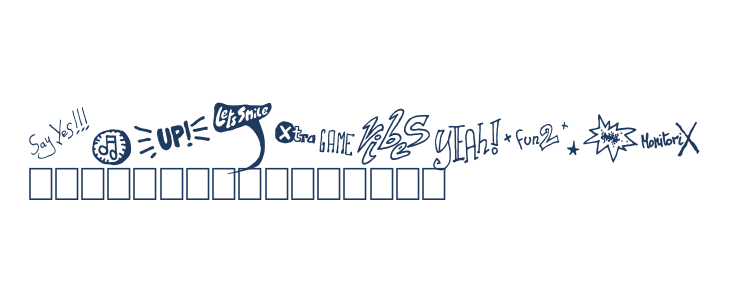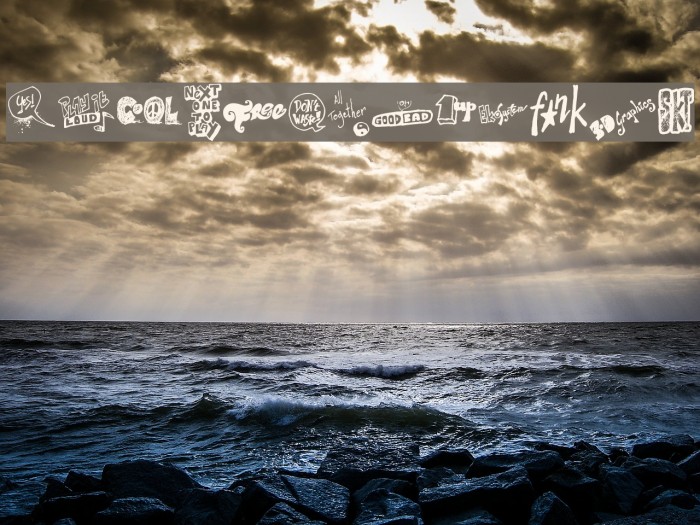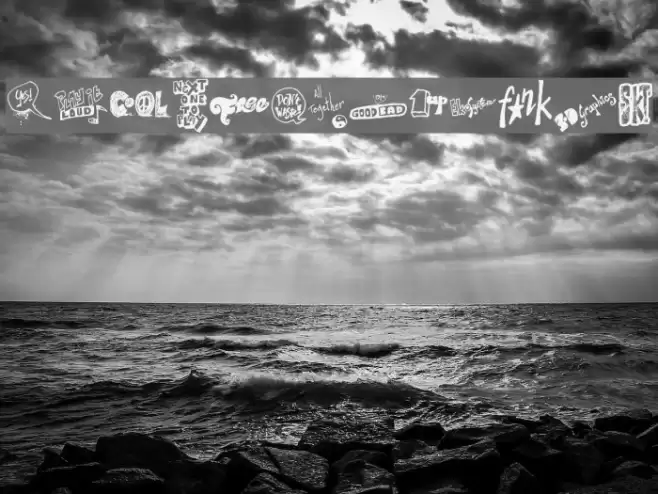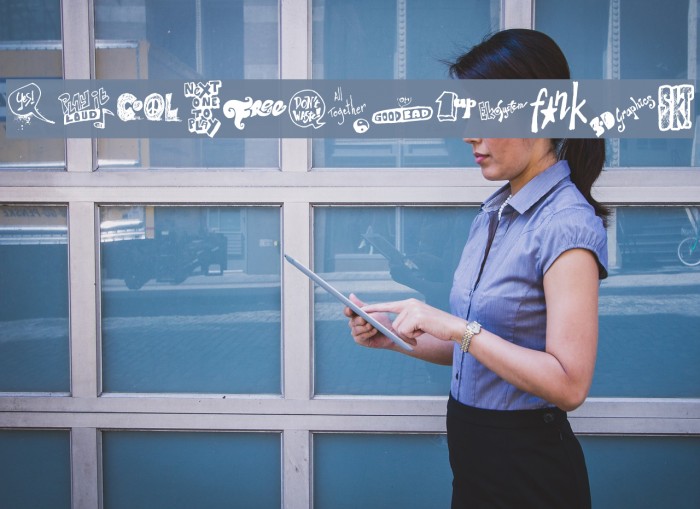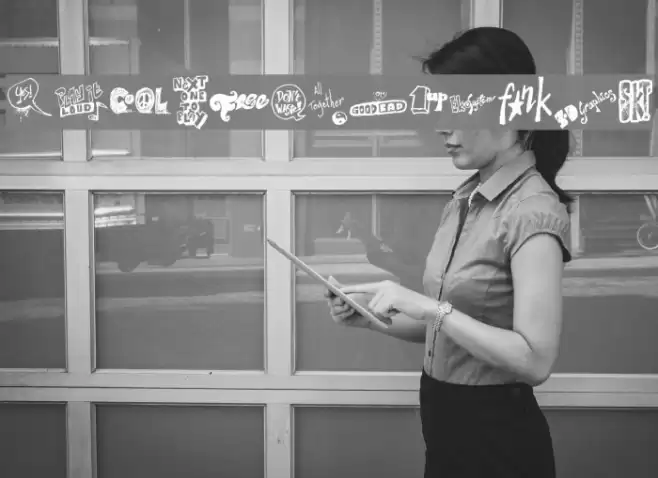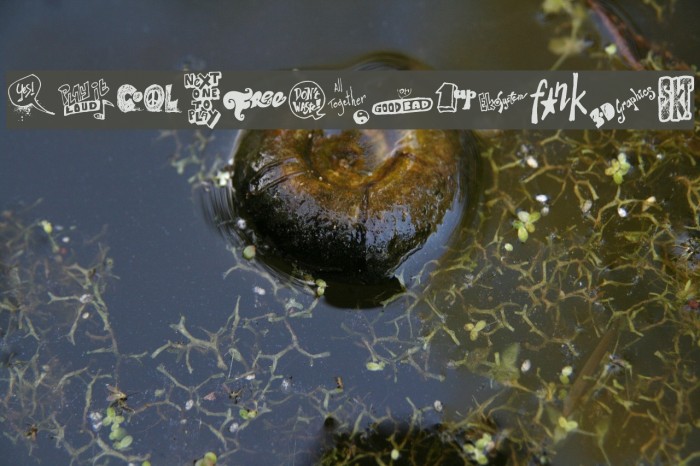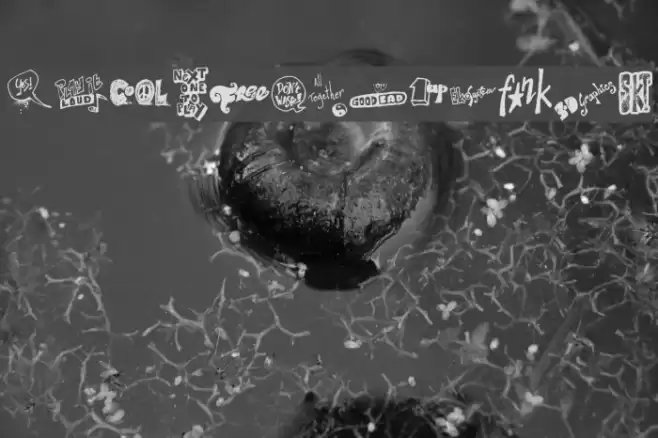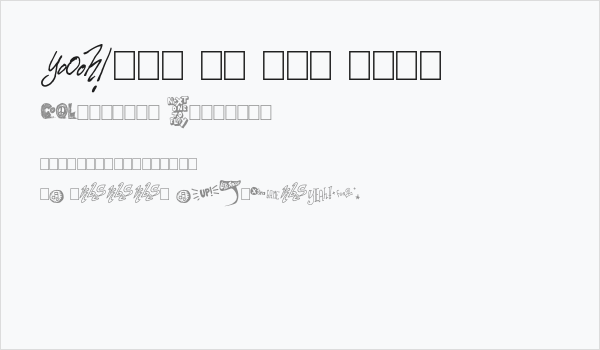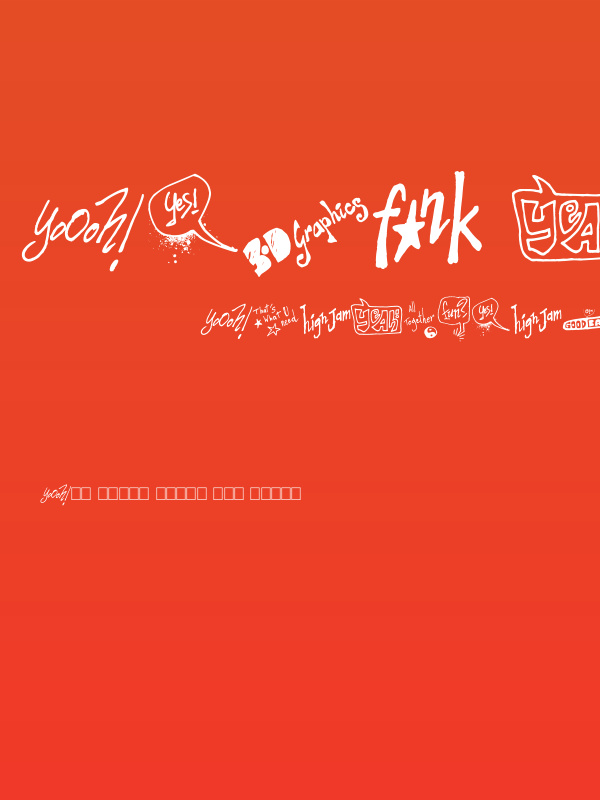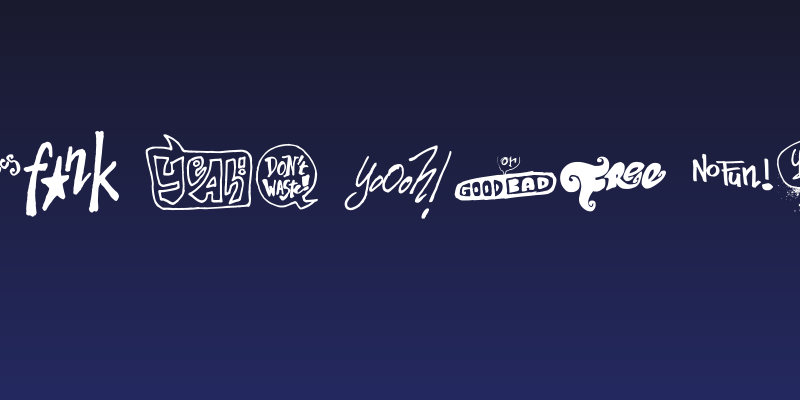
Talk of the wall Font
Talk of the wall Description
This font exudes a vibrant and energetic street art vibe, capturing the essence of urban graffiti. Each character is uniquely styled, with exaggerated curves, bold strokes, and playful elements that give it a dynamic and rebellious feel. The letters are highly decorative, often incorporating additional artistic elements like splatters, arrows, and stars. This font is perfect for projects that aim to convey a sense of youthful exuberance and creativity. The overall design is chaotic yet harmonious, making it ideal for eye-catching headlines and artistic expressions.
| Overall Style | Modern, Urban, Graffiti |
| Proposed Projects | Ideal for street art projects, music album covers, event posters, and urban-themed branding. |